Geometry Dash Font
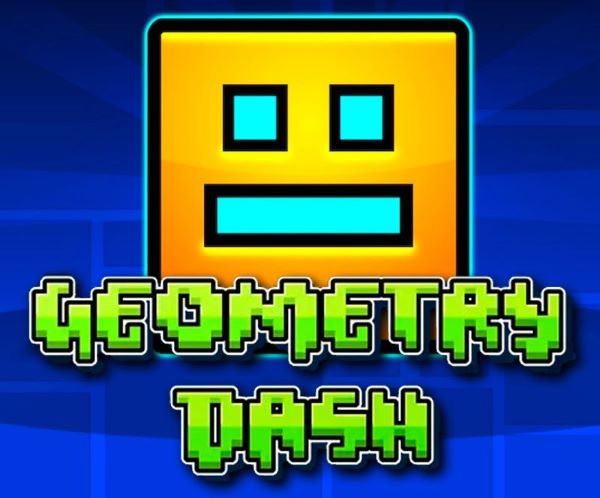
Geometry Dash font refers to the two typefaces that define the visual identity of the iconic rhythm-based mobile game developed by Robert Topala of RobTop Games. The logo uses Oxygene 1, a pixel display font designed by Jakob Fischer, while the in-game UI text relies on Pusab by the Flat-It type foundry — a rounded, bubbly font that perfectly matches the game’s energetic, colorful aesthetic and has become instantly recognizable to millions of players worldwide.